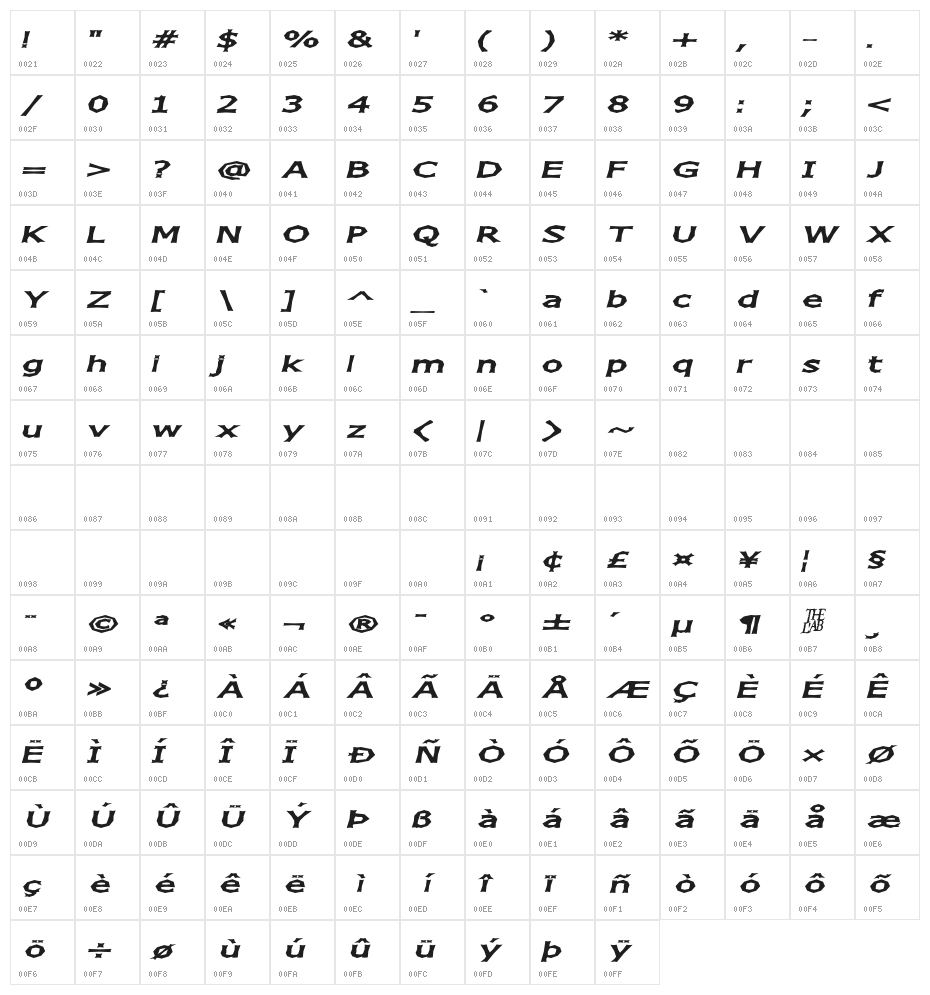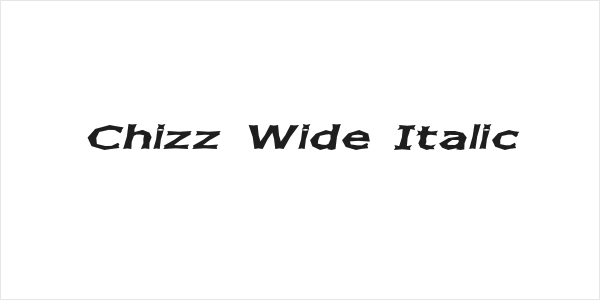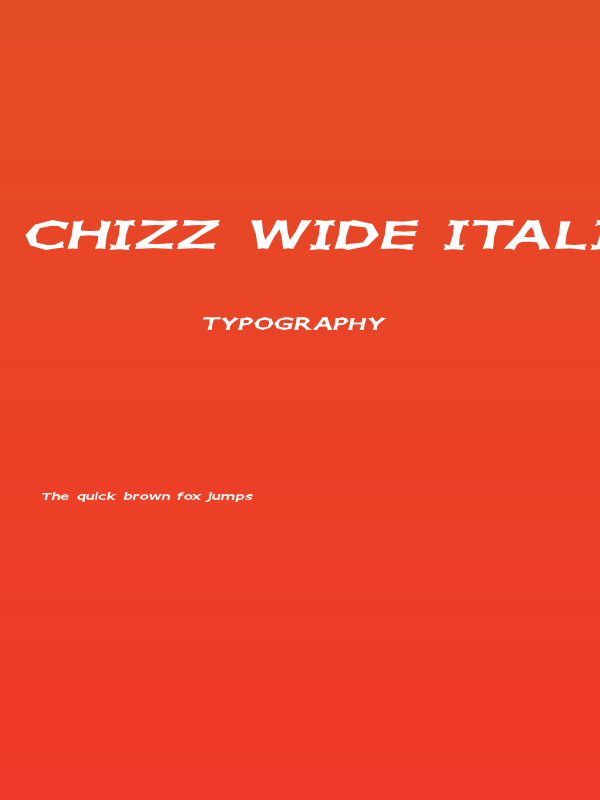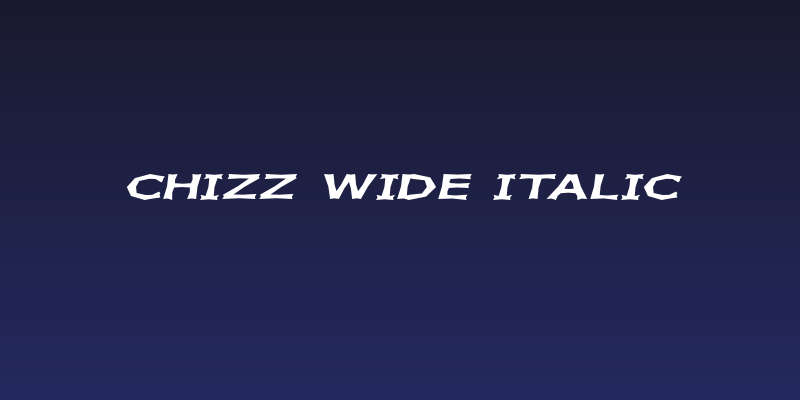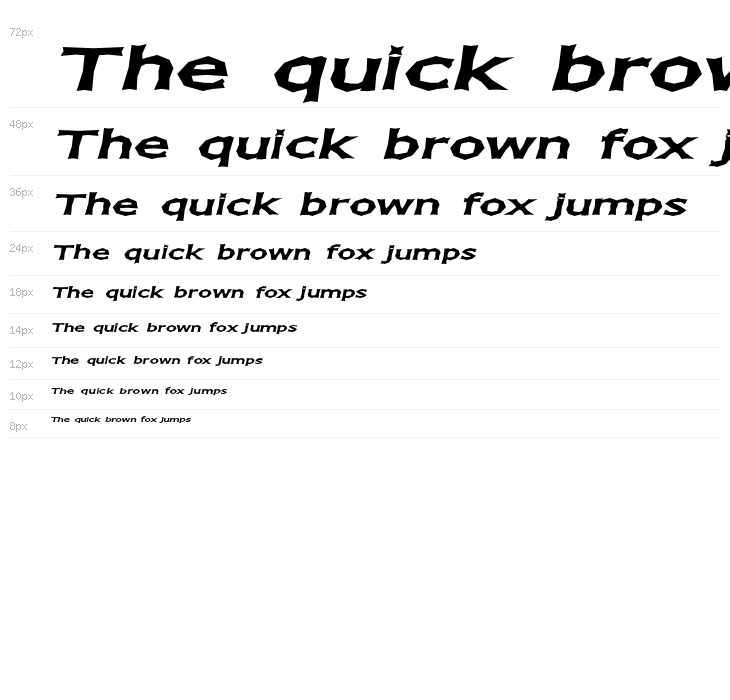
Chizz Wide Italic Font
Chizz Wide Italic Description
This font features a bold and dynamic style with a wide stance and italicized slant, giving it a sense of movement and energy. The characters are angular and sharp, with a slightly aggressive appearance that makes them stand out. The uppercase and lowercase letters maintain a consistent style, with the lowercase letters being slightly more compact. Numbers and special characters follow the same design principles, ensuring uniformity across all glyphs. The font's unique style makes it suitable for attention-grabbing designs.
| Proposed Projects | Ideal for sports branding, action movie posters, video game titles, and dynamic advertising campaigns. |